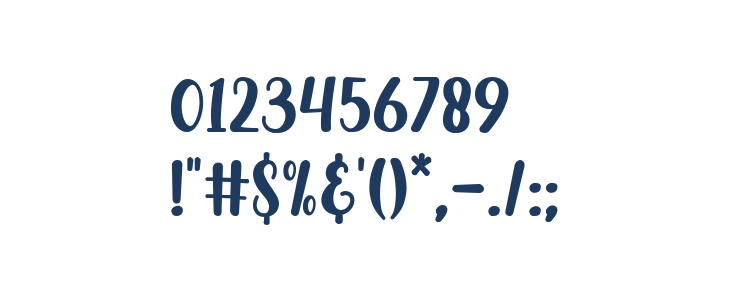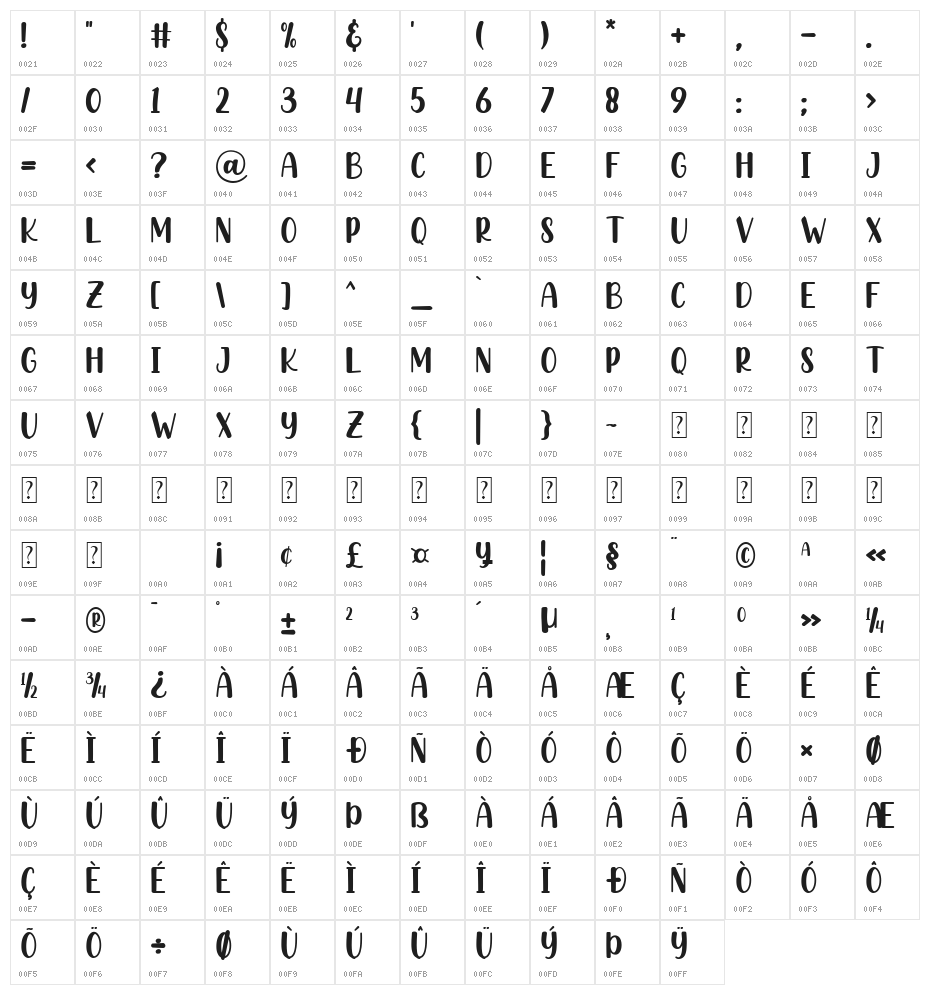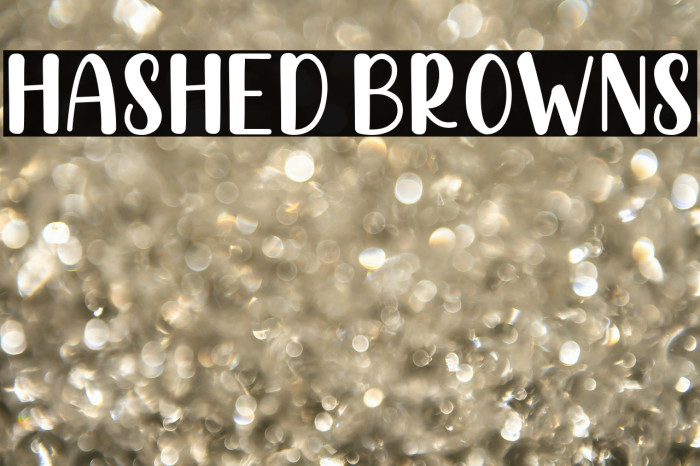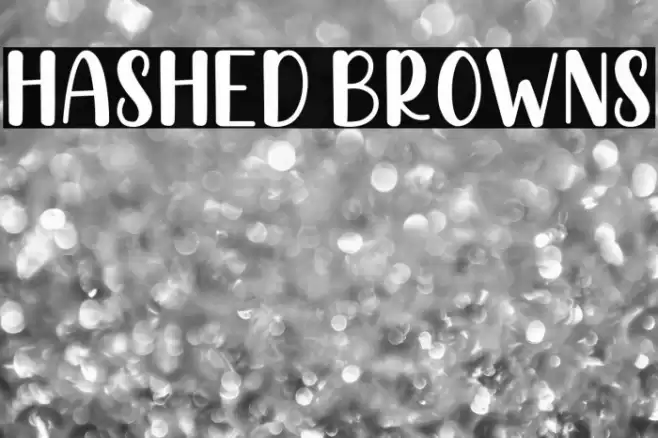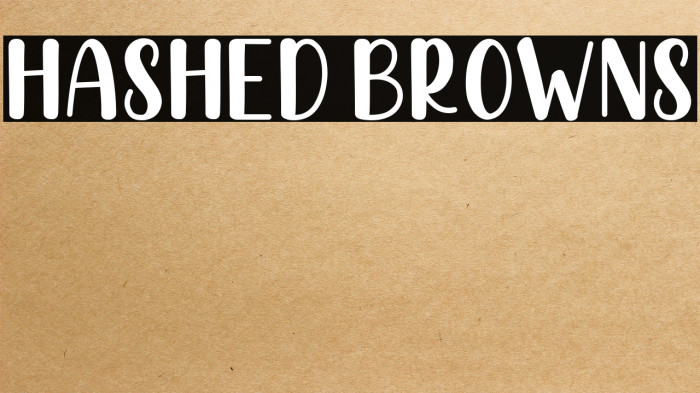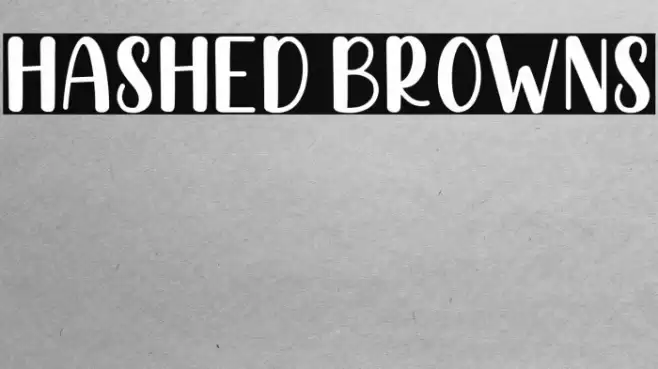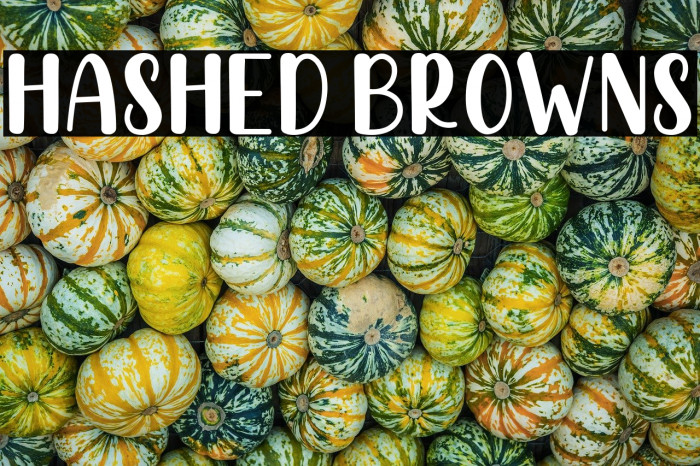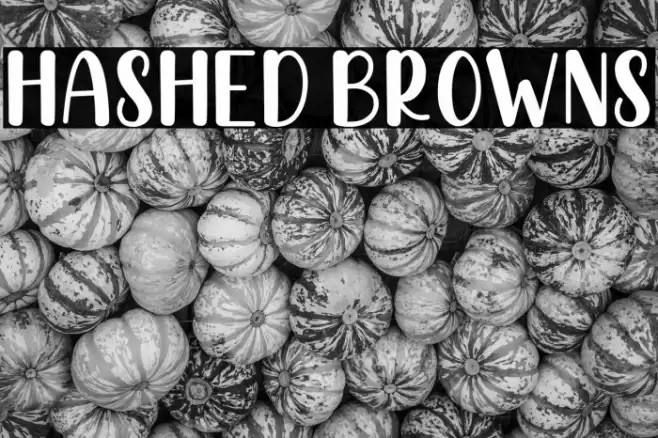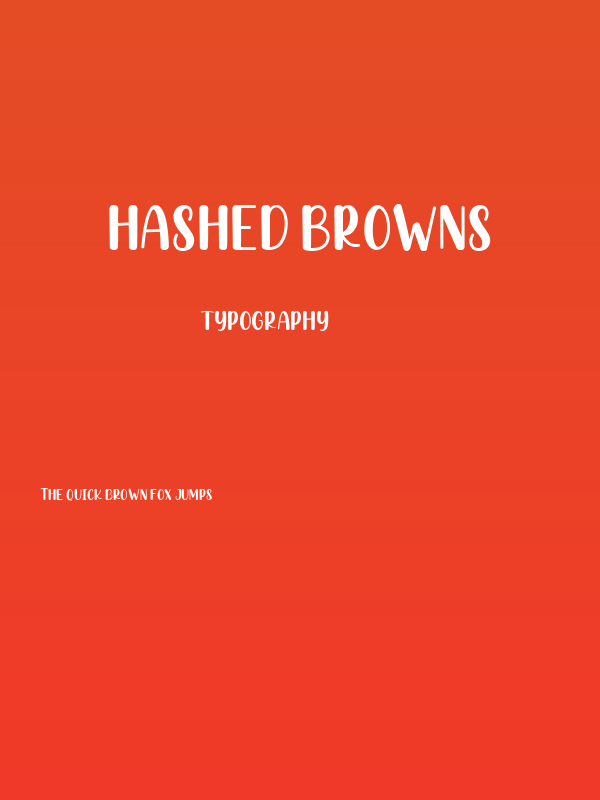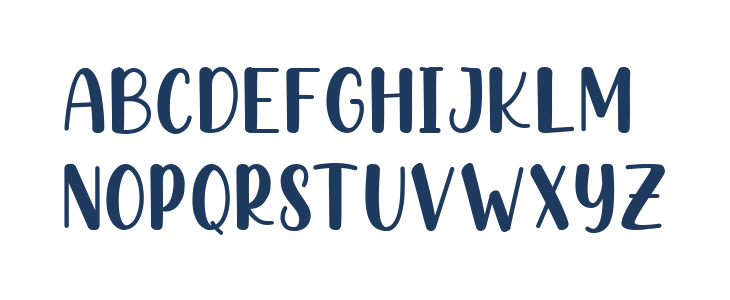
Hashed Browns Font
Hashed Browns Description
This font features a playful and bold handwritten style, characterized by its thick strokes and rounded edges. The uppercase letters are uniform in height, while the lowercase letters maintain a consistent baseline, adding to its cohesive appearance. The numbers are bold and easily readable, matching the overall style of the letters. Special characters are included, maintaining the same playful aesthetic. The font's boldness and rounded forms give it a friendly and approachable feel, making it suitable for a variety of creative projects.
| Proposed Projects | Ideal for children's books, playful branding, greeting cards, and social media graphics. |